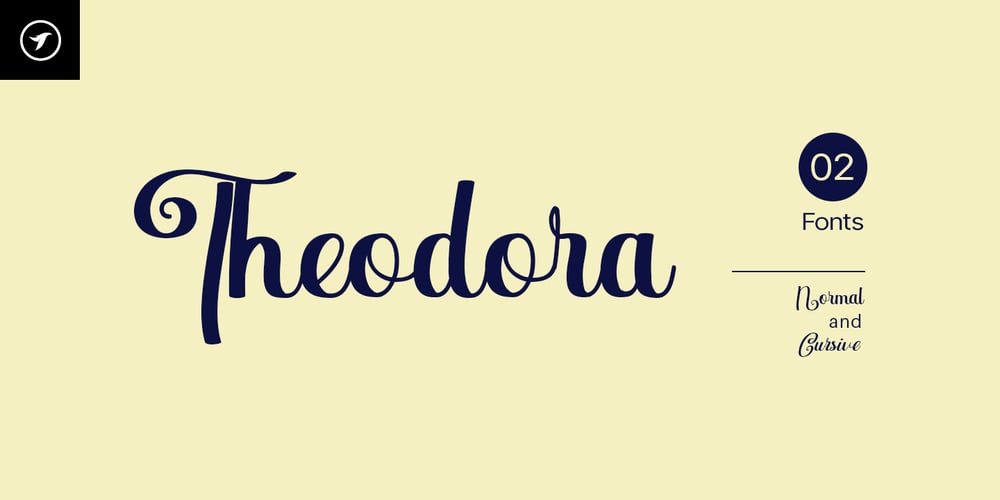
Theodora Font Family was designed by Jean Johnson and published by Designova. Theodora contains 2 styles and family package options. Theodora is a beautifully handwritten script typeface with a unique flair and unmistakable presence. This typeface is a perfect option for designing greetings, ornamental text, creative branding and artistic logotypes. This font is a great choice for luxury/signature/branding/logotype/wedding invites/greeting cards / promotional graphics. Theodora is completely handmade with utmost dedication and passion for maintaining the highest aesthetic quality. The font comes with extended language support including Western European & Central European sets, with a total of 248 glyphs included.The typeface comes with 2 fonts, one with a Normal style and another with a Cursive style.